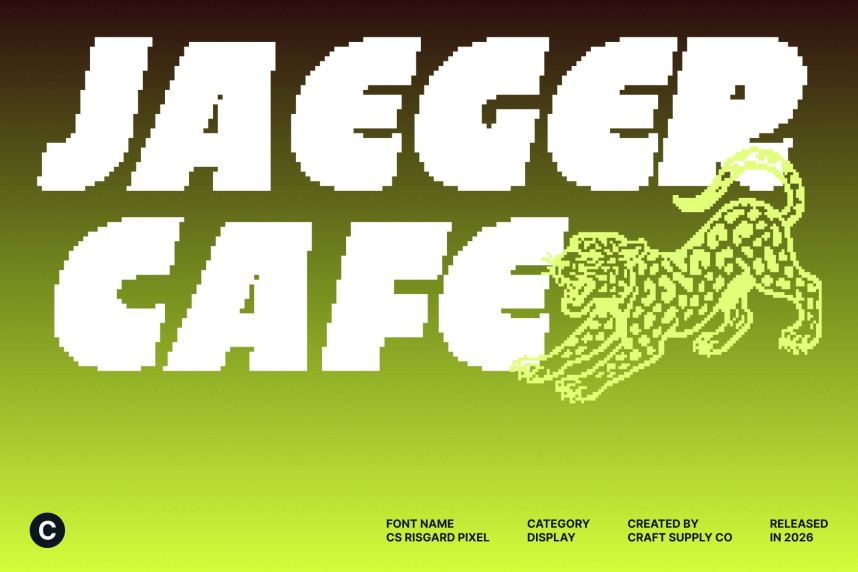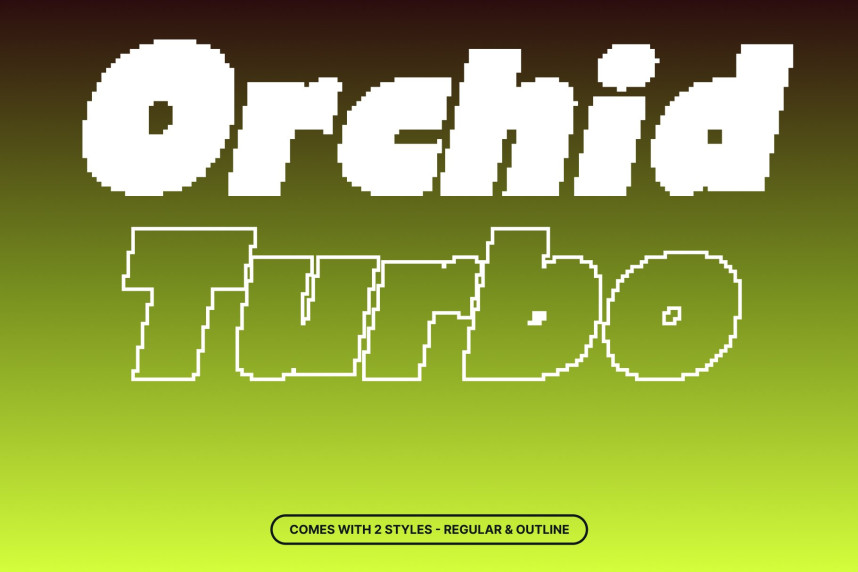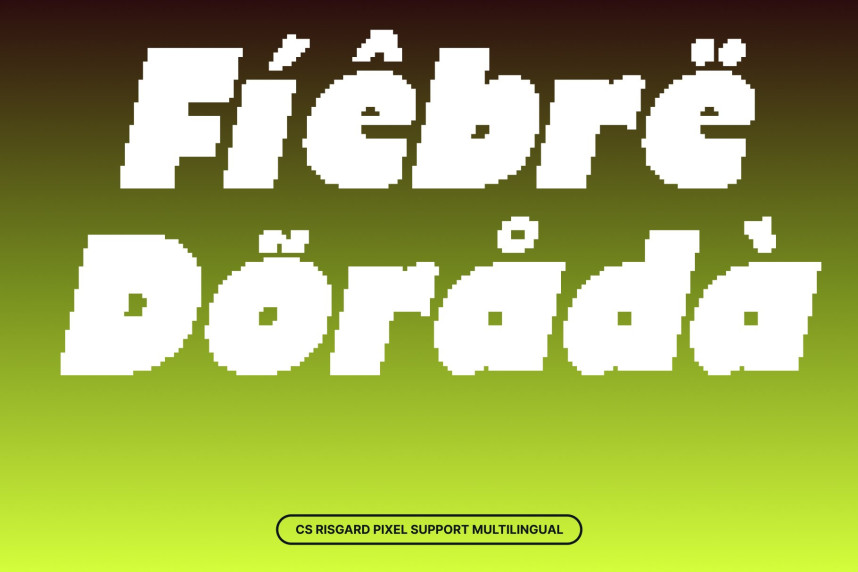
CS Risgard Pixel Font
CS Risgard Pixel Font – Bold Modern Sans Serif with Funky Digital Energy Strong Shapes with Modern Pixel Confidence. This is a bold modern sans serif font built with clean, powerful forms and reinforced by a pixel-inspired structure. Each letter is crafted with strong geometry and confident proportions, creating high visual impact that instantly draws attention. The pixel styling adds a digital sharpness that makes the font feel contemporary, energetic, and screen-ready.